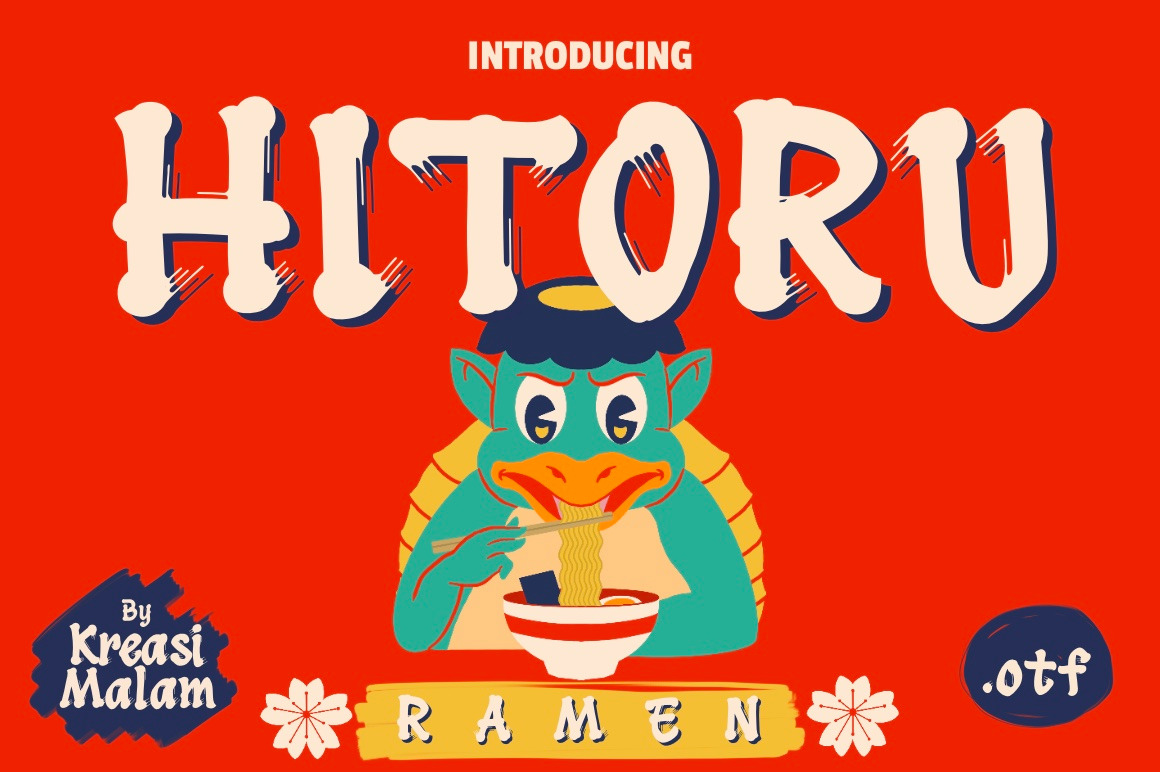
Hitoru Ramen Font
Hitoru Ramen a handmade font with Japanese style would be awesome for your design projects. It could be fitted for logos, quotes, t-shirts, posters or anything. Available in uppercase, lowercase, numerals and punctuations.